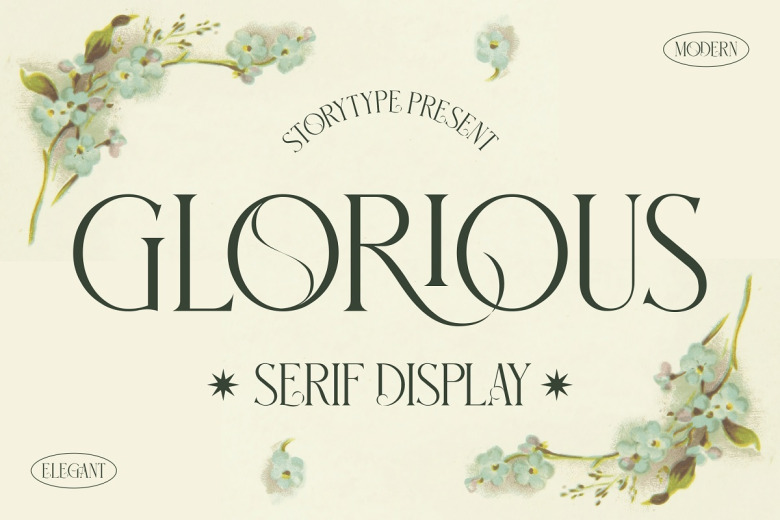
Glorious Font
GLORIOUS — New Elegant Serif (UPDATED) proudly present GLORIOUS Typeface, created by Storytype, this is a new and modern serif typeface, a serif typeface that has own unique style of each letters. This font is suitable for everything, such as a logo, a poster, a headline title and subheading, a wed design, an invitation letter, a label, a greeting card, branding materials, a business card, clothing, a product packaging, a book or a movie headline, a quote and more.
Glorious Serif Font